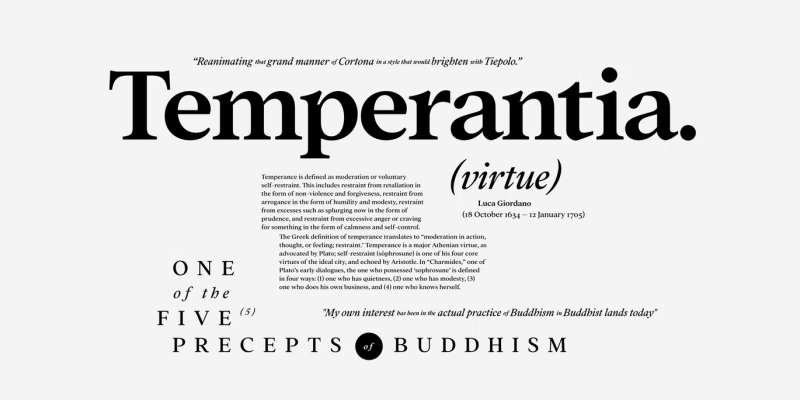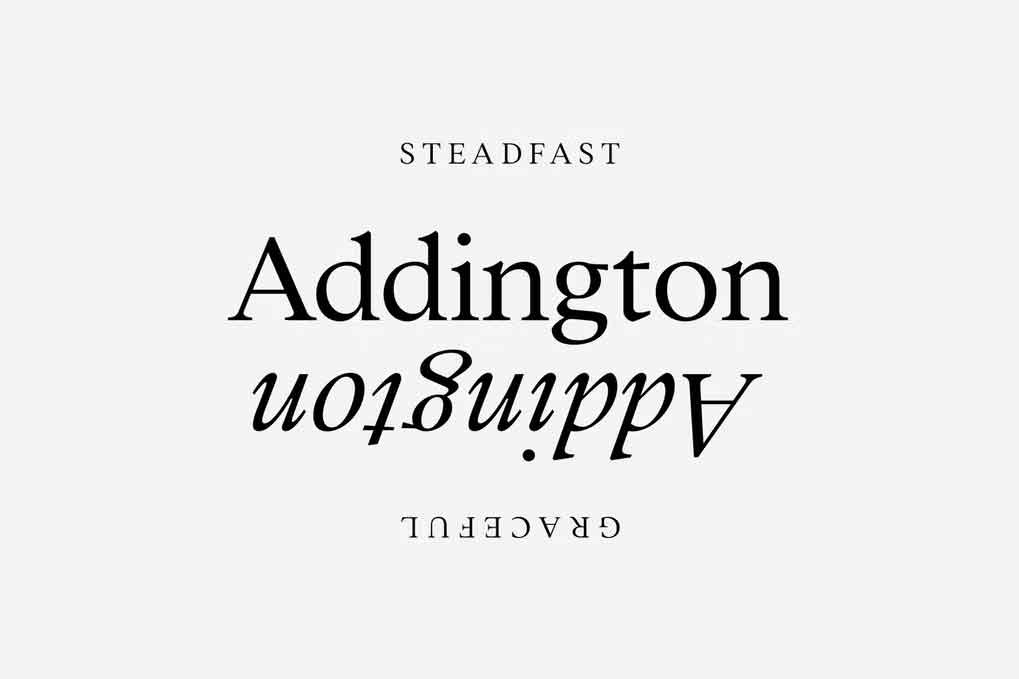
Addington CF serif font family
Reliable and workmanlike on the surface, Addington CF opens up and comes alive with its character and attention to detail. Beautiful yet practical – a versatile typeface with elements of calligraphy, traditional serifs, and new ideas – Addington is a trusty go-to serif. Excellent for text large and small, complete with 6 weights, italics, and OpenType features.
Addington CF serif font family is a Serif Fonts font that brings a professional and versatile look to your projects. Reliable and workmanlike on the surface, Addington CF opens up and comes alive with its character and attention to detail.